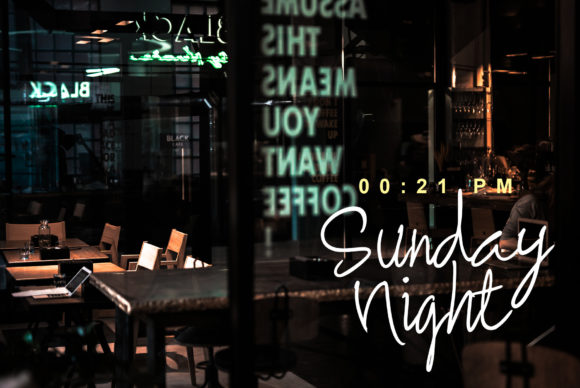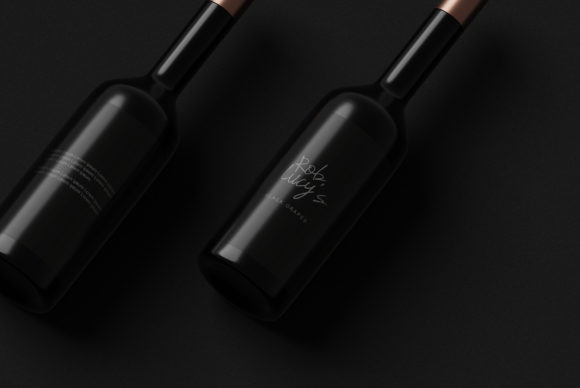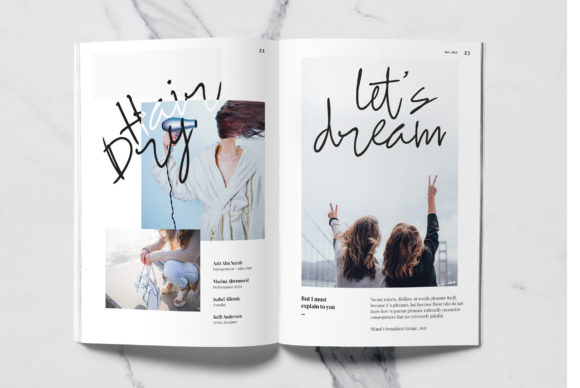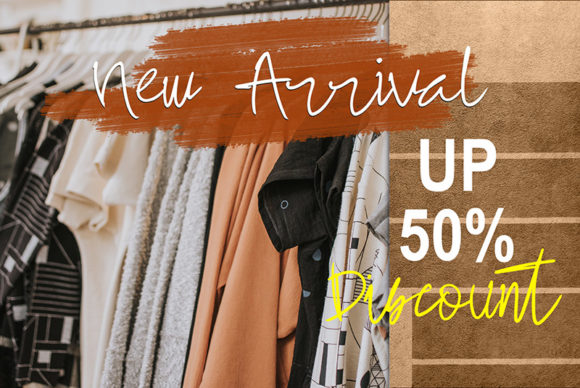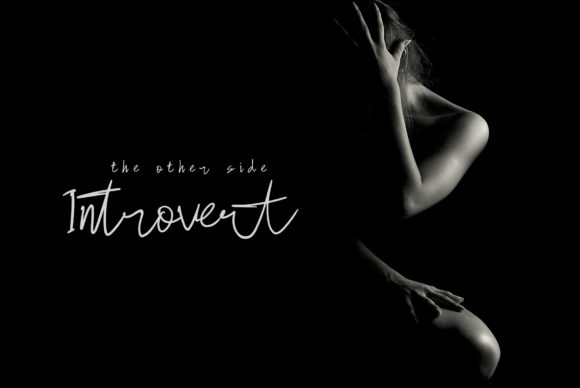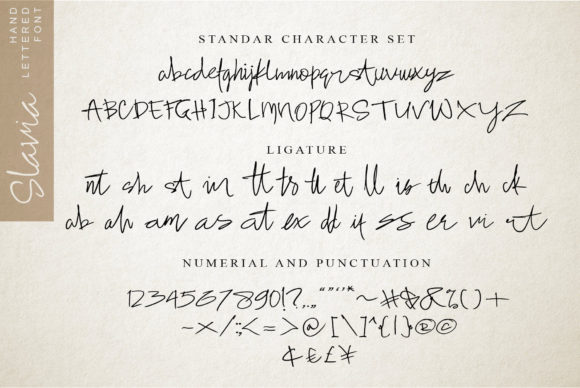
Introduction to Slavia Font
Remember that moment when you’re working on a creative project and you’re stuck on finding the perfect font? The one that captures the essence of your idea and elevates it to the next level? For designers, this is a common dilemma, but it’s about to become a thing of the past with the introduction of the Slavia Font.
As a high-quality, versatile font, Slavia Font is perfect for a wide range of design projects. Whether you’re working on a branding project, creating a wedding design, or crafting invitations, this font is sure to impress. With its flowing and timeless handwritten style, Slavia Font adds a touch of elegance and sophistication to any design. And the best part? It’s a free download, making it an invaluable resource for designers of all levels.
Key Features of Slavia Font
- High-quality font with a transparent background, ideal for creative projects and design resources.
- Features a unique, elegant design that sets it apart from other fonts, perfect for adding a touch of sophistication to any creative project.
- Supports a wide range of languages, making it a versatile font for designers working on multilingual projects.
- Can be easily customized and edited using popular design software, allowing for endless creative possibilities.
Honest Review: Slavia Font
As a designer, I’m always on the lookout for high-quality fonts that can elevate my creative projects. Recently, I stumbled upon the Slavia Font, and I’m excited to share my thoughts on this design resource.
- Slavia Font has a beautiful, elegant script style that’s perfect for invitations, posters, and other creative projects.
- The font is highly customizable, allowing me to adjust the size, color, and spacing to suit my design needs.
- The transparent background option is a huge plus, making it easy to combine with other design elements.
- The font is not as versatile as some other script fonts on the market.
- It may not be the best choice for projects that require a lot of bold, attention-grabbing text.
Overall, I’m impressed with the Slavia Font. It’s a high-quality design resource that’s perfect for creative projects that require a touch of elegance and sophistication. While it may have some limitations, I highly recommend it for designers who are looking for a beautiful script font.
How to Use Slavia Font
Slavia Font
Alternatives to Slavia Font
Open Sans is a free and open-source font that is widely used in web design and creative projects. It features a clean and simple design with a transparent background, making it perfect for designs that require a high level of readability. Open Sans is a great alternative to Slavia Font, offering a more modern and minimalist aesthetic that is suitable for a wide range of design applications.
Lato is a high-quality sans-serif font that is designed for digital use. It features a transparent background and clean lines, making it ideal for creative projects that require a modern and elegant aesthetic. Lato is a popular design resource that can be downloaded for free, offering a range of weights and styles to suit various design needs. Compared to Slavia Font, Lato is more refined and offers a more sophisticated look, making it a great alternative for designers who want a high-quality font for their creative projects.